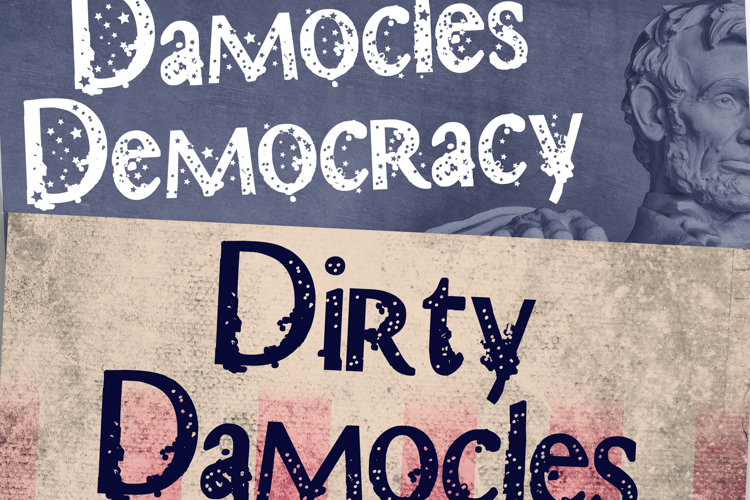
Dirty Damocles Democracy Font Family
This hand-crafted font is a crafty sans serif family with a lot of grunge and stars on some of the family members.